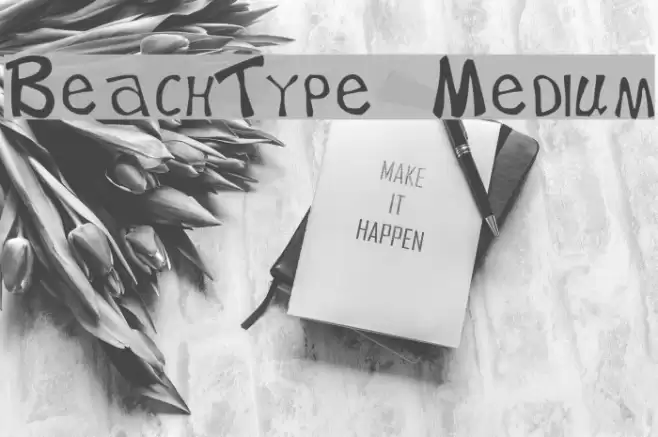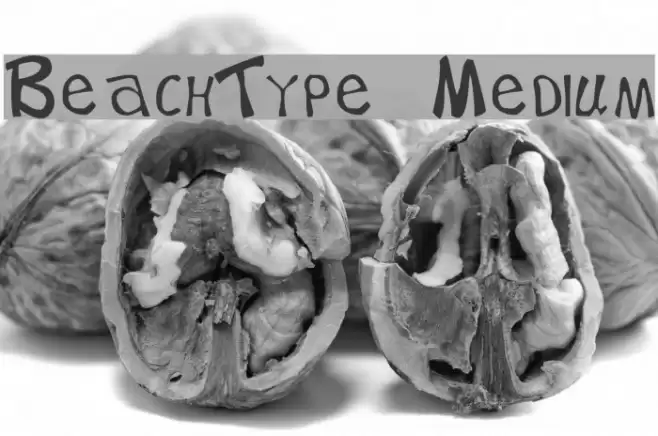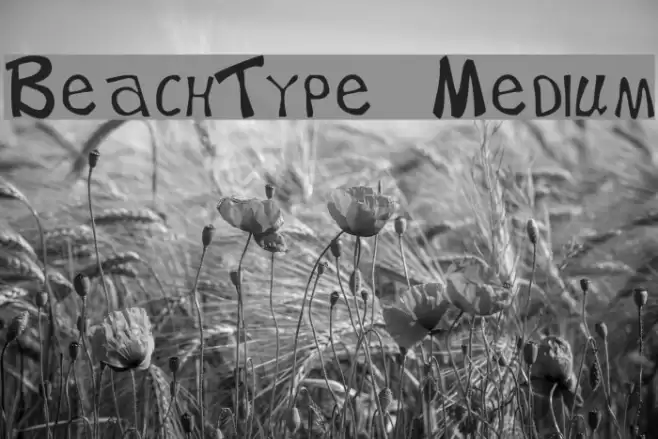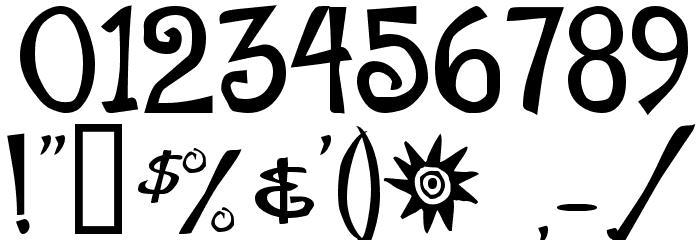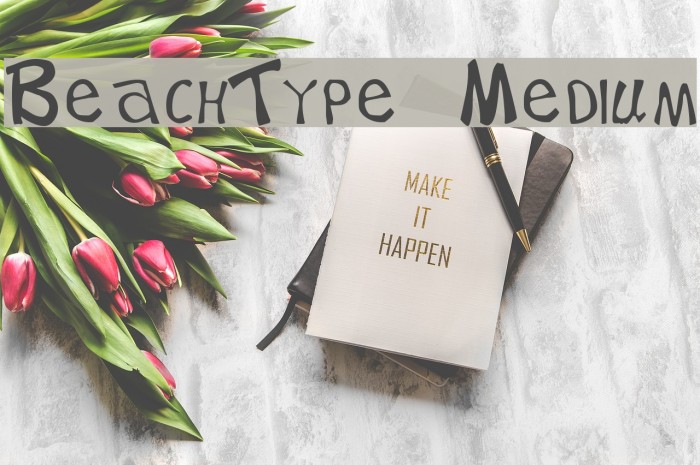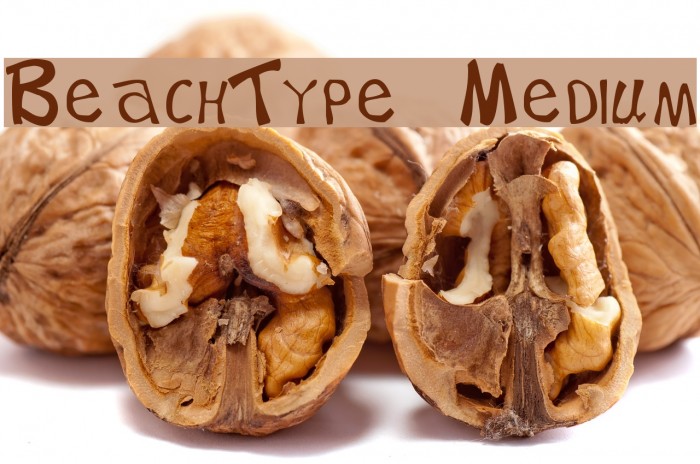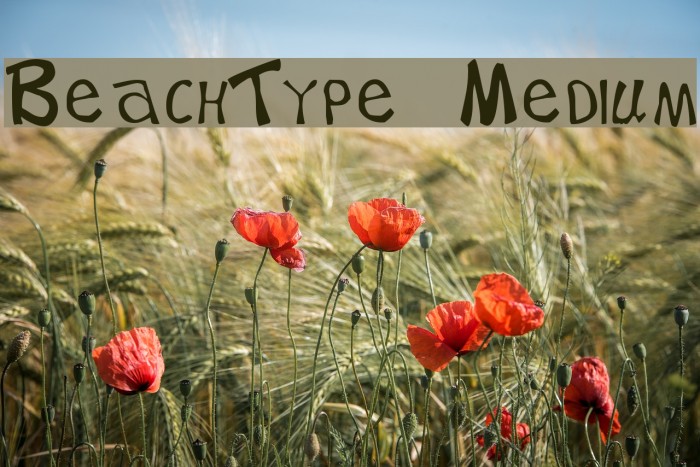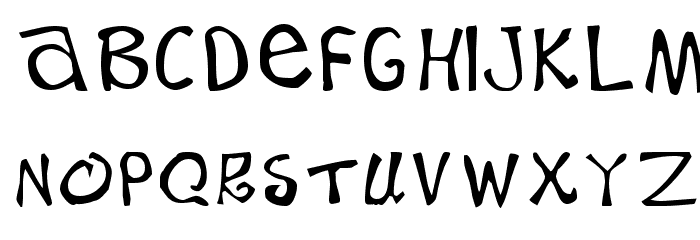
BeachType Medium Font
BeachType Medium Description
This font features a playful and whimsical design, characterized by its irregular and dynamic letterforms. The uppercase and lowercase letters exhibit a hand-drawn aesthetic, with varying stroke widths that add to its casual and informal appearance. The numbers and special characters maintain this lively style, making it suitable for creative and fun projects. The font's unique personality is evident in its quirky shapes and slightly exaggerated curves, which give it a distinctive and eye-catching look.
A playful, hand-drawn font with irregular, dynamic letterforms from Decorative fonts.
- Proposed Projects: Ideal for children's books, greeting cards, posters, and playful branding.
- Overall Style: Playful